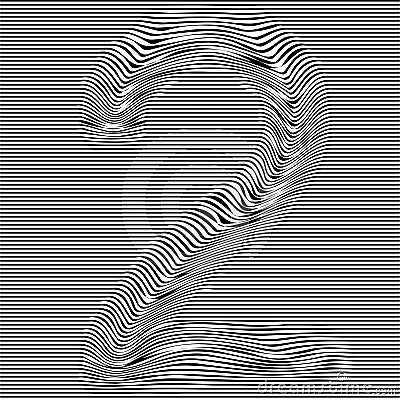
Striped Typeface With Geometrical Pattern Character 2 Of A Numbers Font. Vector Lettering With Glitch Effect, Black Horizontal Dis
Striped typeface with geometrical pattern character 2 of a numbers font. Vector lettering with glitch effect, black horizontal distorted digital stripes on transparent background.